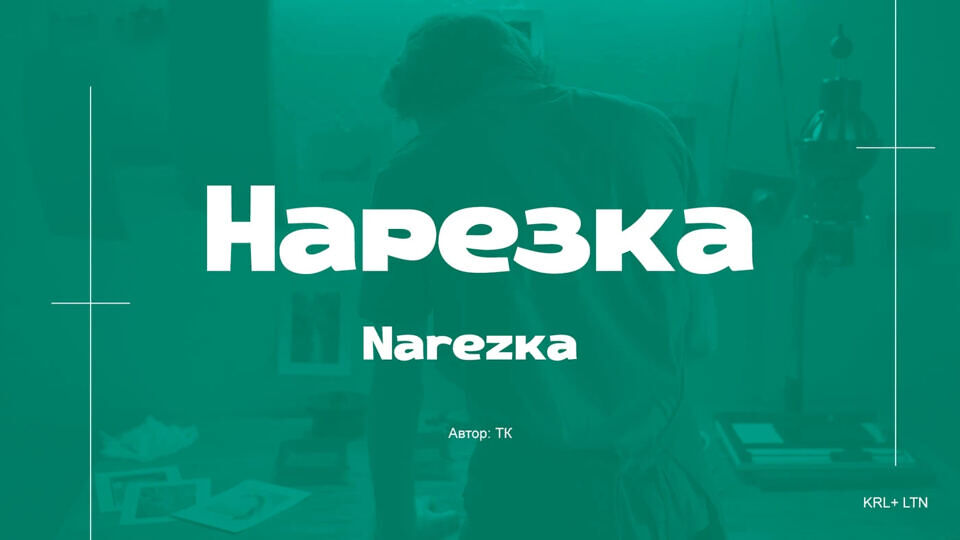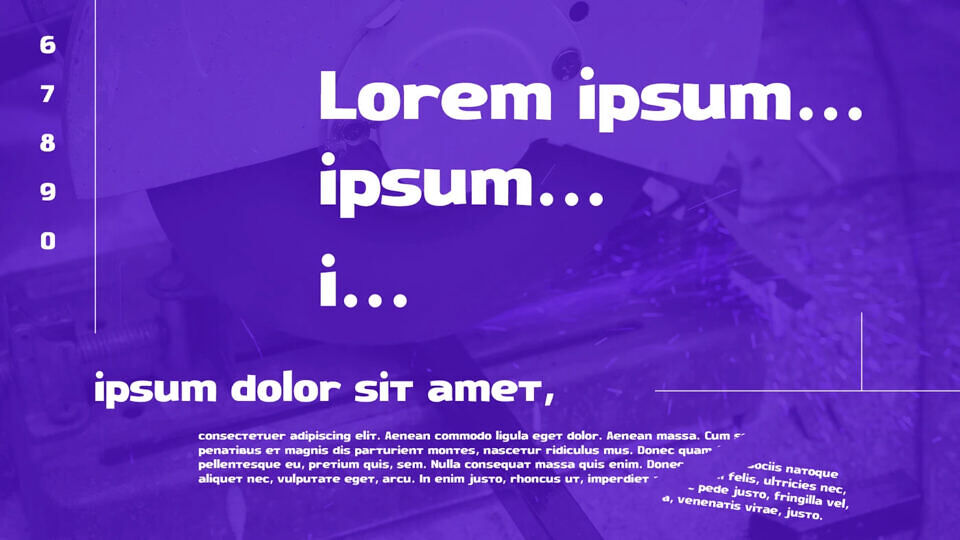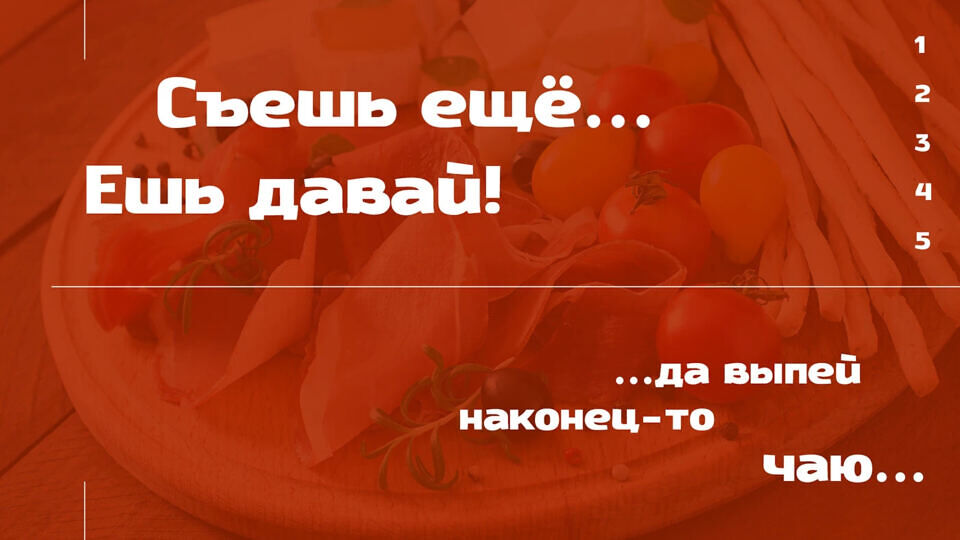
Narezka Font is a free bold display typeface with a rounded, chunky, and modern look. Its playful geometric shapes and smooth curves make it ideal for headlines, posters, branding, social media graphics, and eye-catching layouts.
The font feels friendly yet strong, standing out clearly on colorful backgrounds. Narezka supports Cyrillic and Latin characters, making it perfect for multilingual designs. Narezka Font works especially well for creative projects that need impact, readability, and a contemporary visual style.